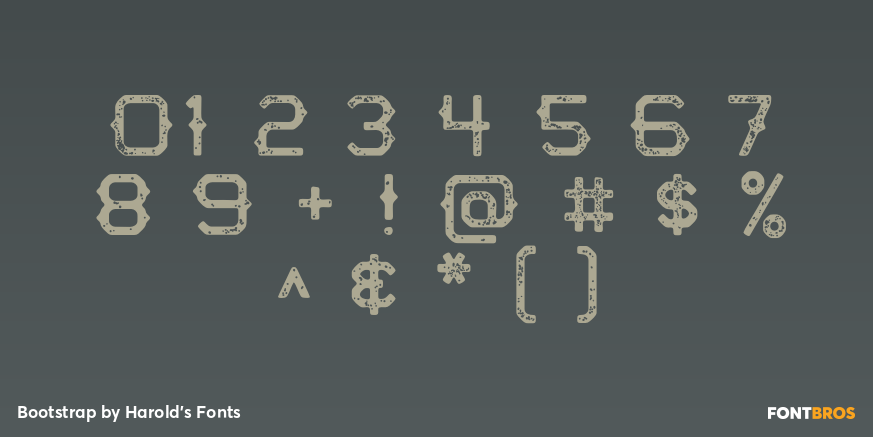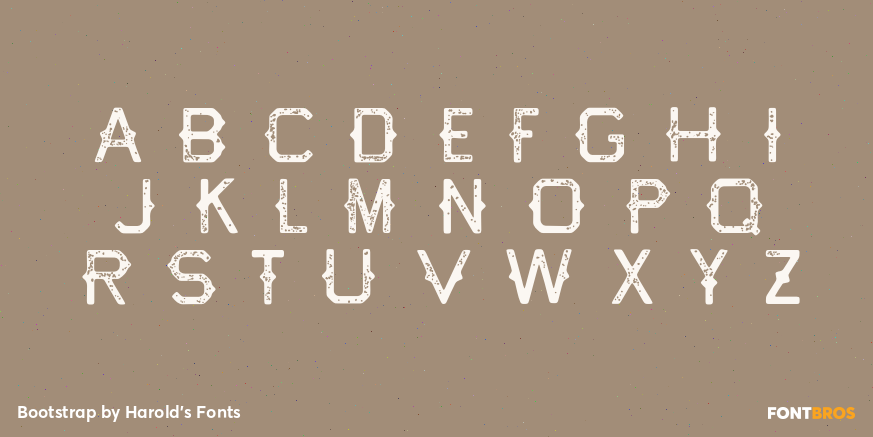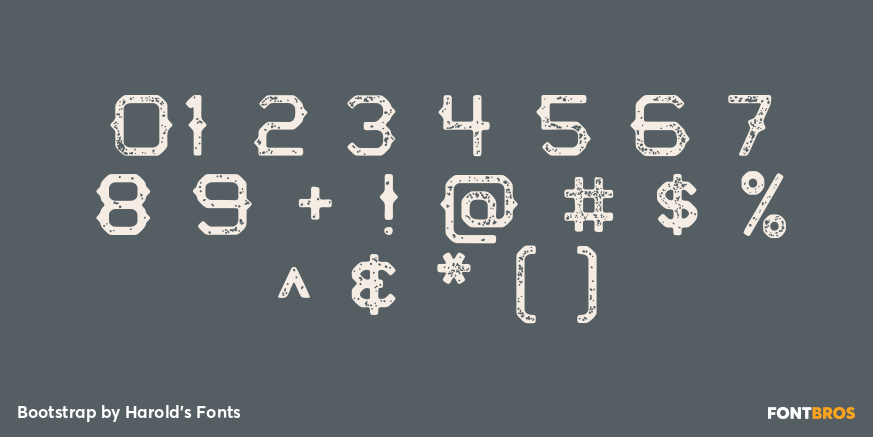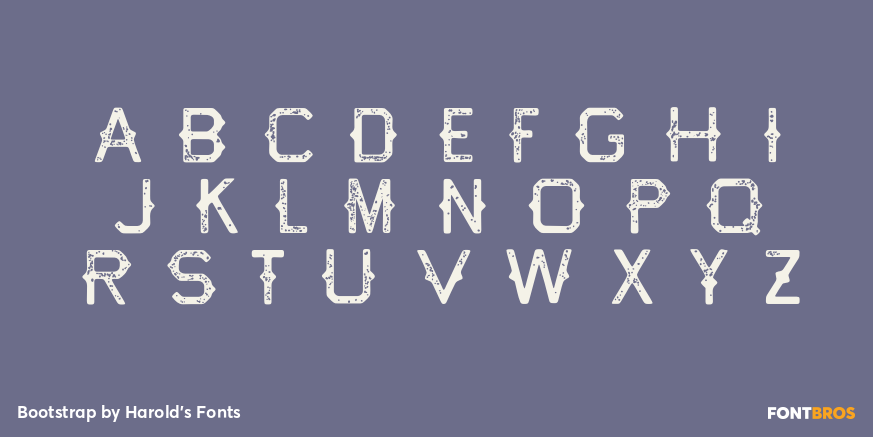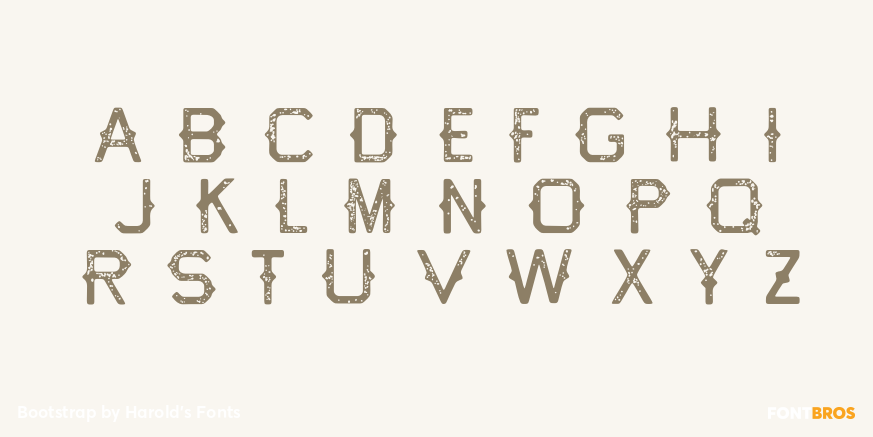
Bootstrap
Font Family by Harold's Fonts
Bootstrap has a rough-hewn Western feel, like letters were made by an old-time blacksmith or printed with the crudest of wooden type. The letterforms are bold and simple, with spurs and a rough texture. Bootstrap's roots are in my Tapeworm font, reimagined for a new old look.